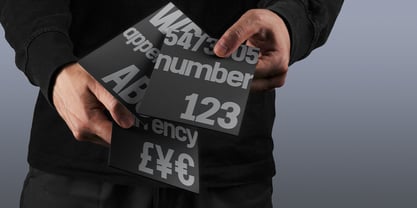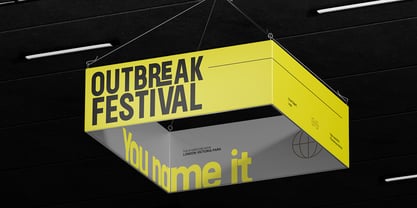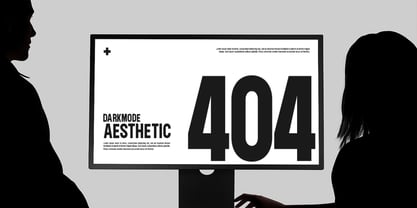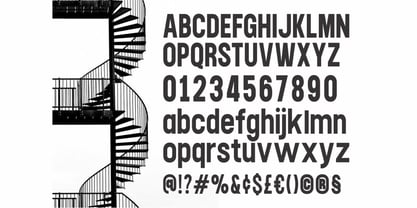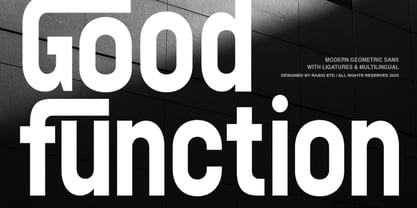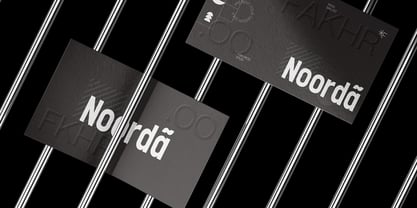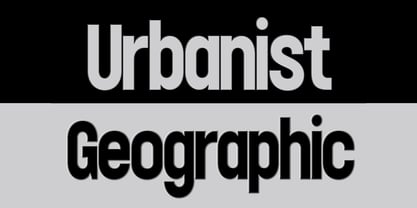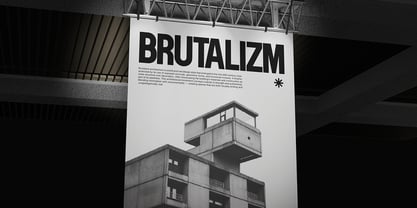
Good Function
by Rasio Studio
The Good Function Font Family was designed by Fajar Indra and published by Rasio Studio. Good Function contains 1 styles. More about this family
Good Function is a bold modern geometric sans serif typeface designed with strong structure, clean proportions, and confident visual weight. Built on precise geometric foundations, it delivers clarity and impact across large-scale headlines and branding systems. Good Function is ideal for corporate branding, architecture studios, real estate companies, technology firms, editorial layouts, website headers, packaging systems, and modern marketing campaigns. Its structured geometric appearance communicates stability, professionalism, and forward-thinking clarity, making it perfect for brands that value precision and modern sophistication.
Designers: Fajar Indra
Current Foundry: Rasio Studio